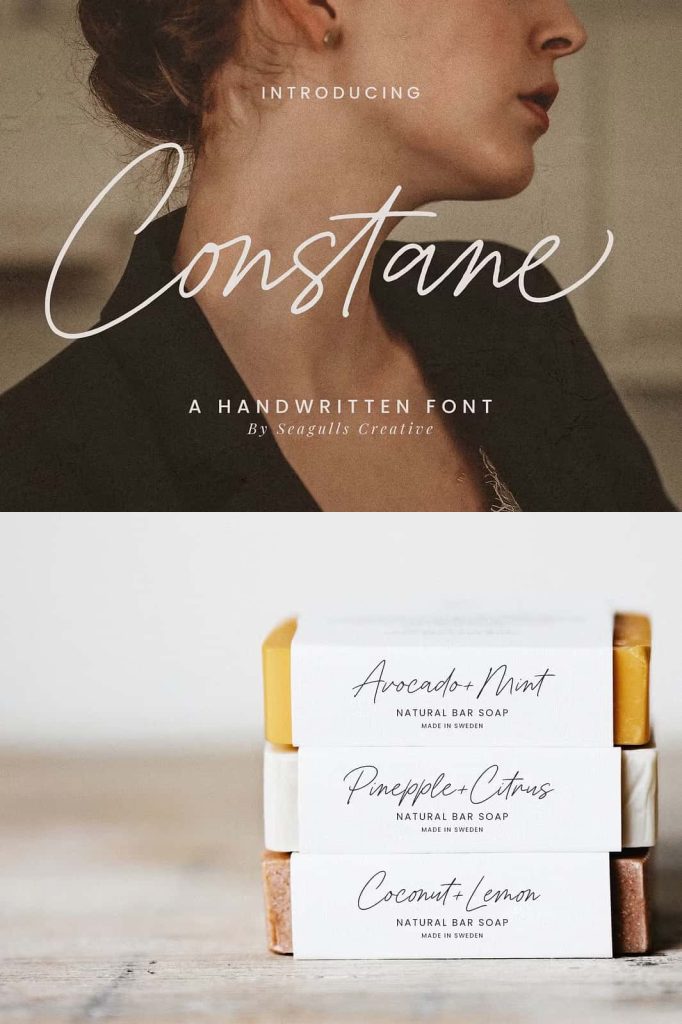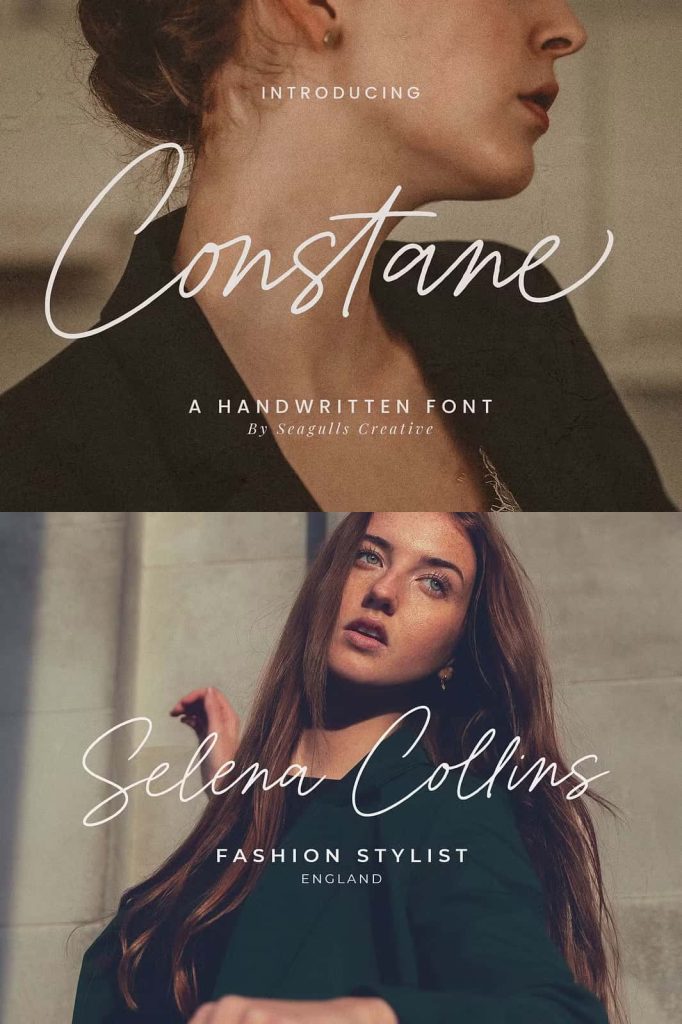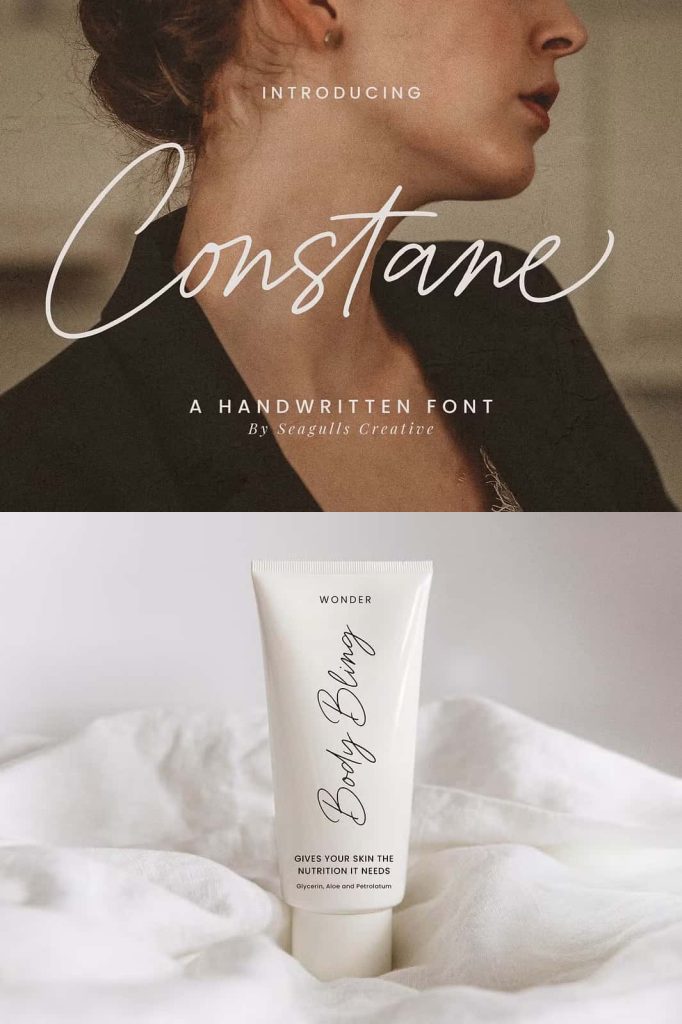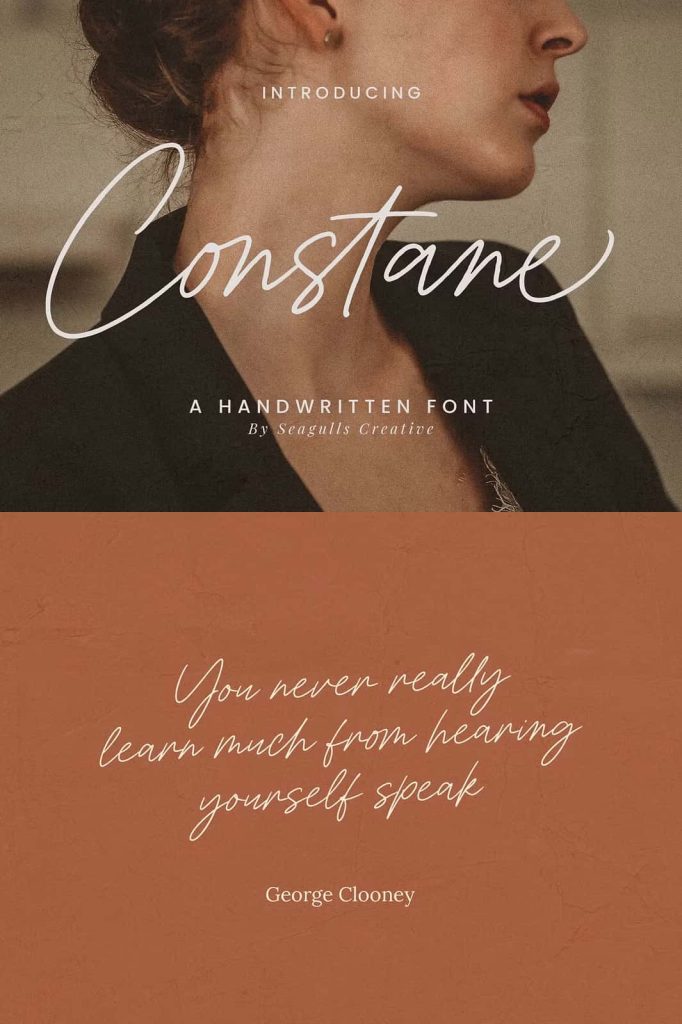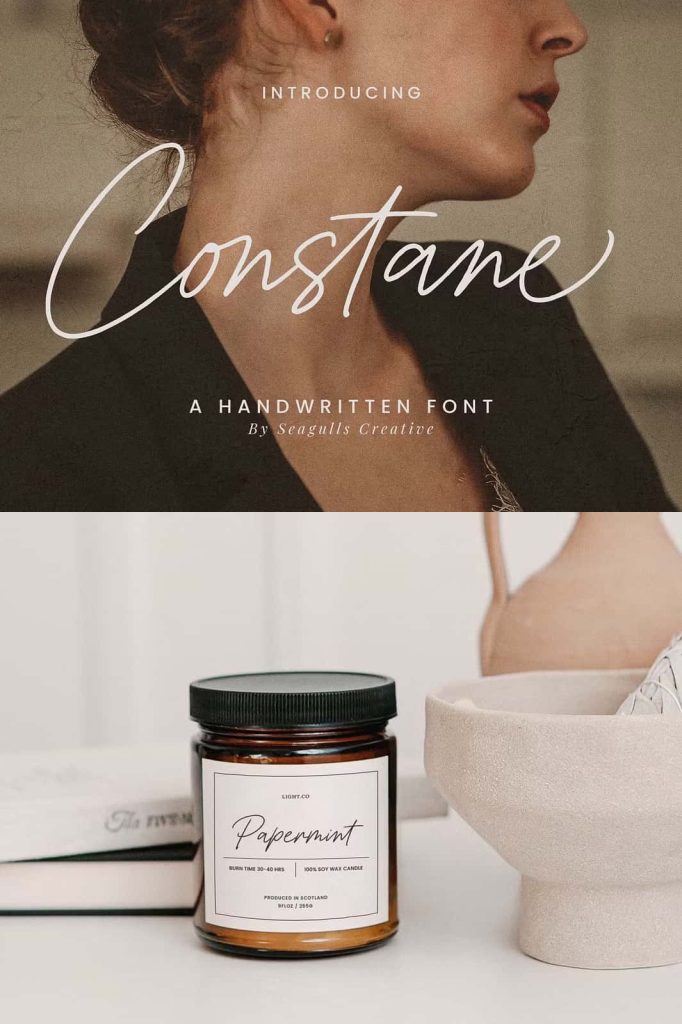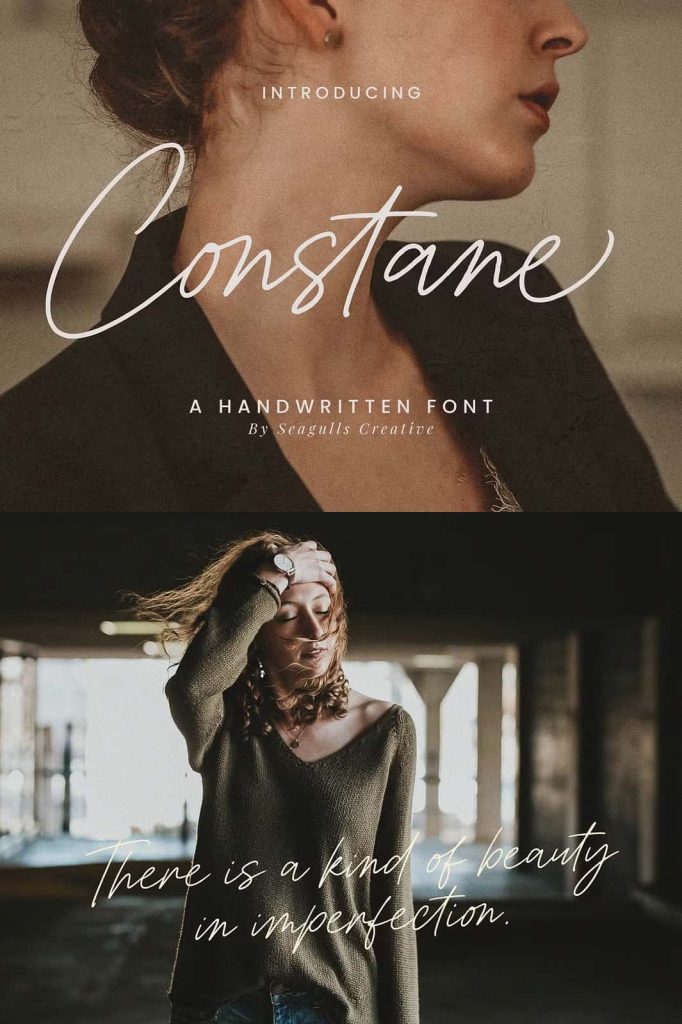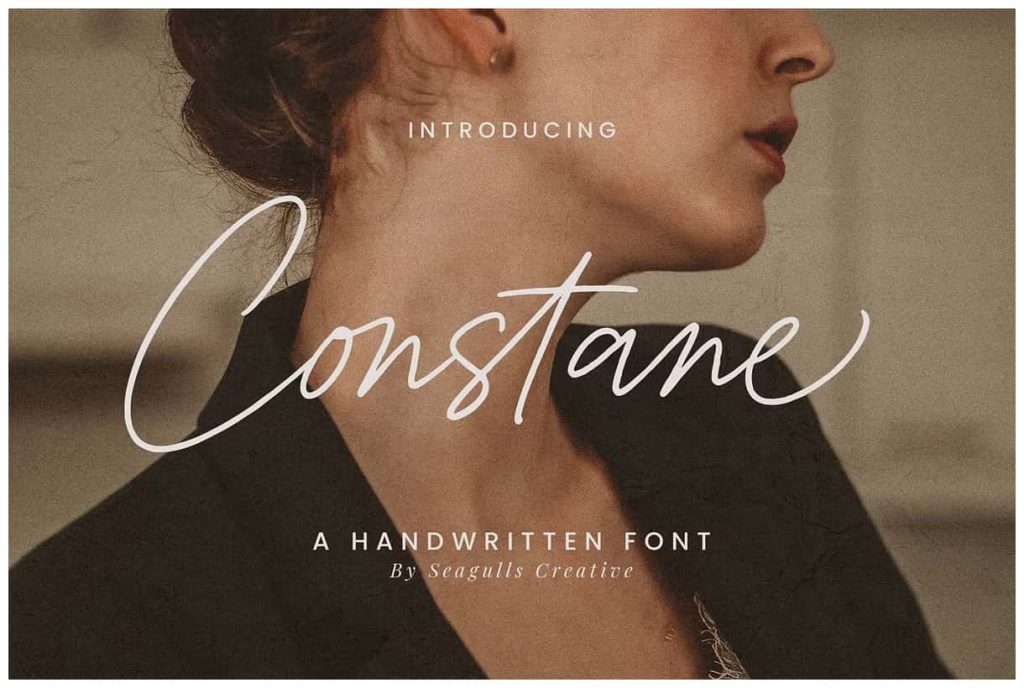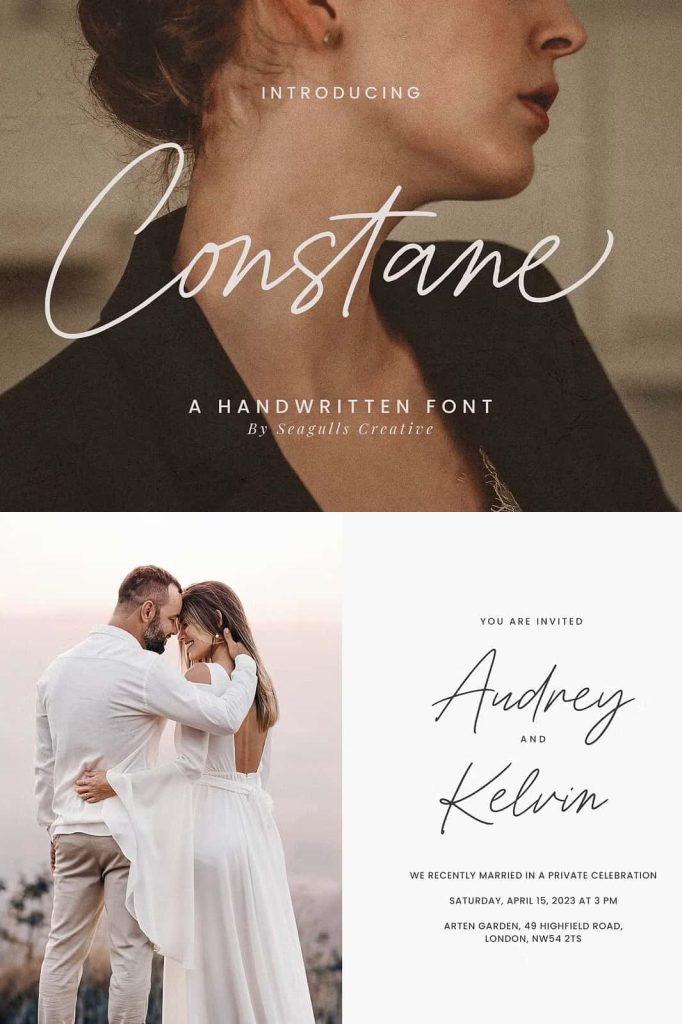
Constane Font: A Versatile Typeface for Stylish and Professional Designs
Constane is a highly versatile and stylish font crafted to enhance a wide range of creative projects with elegance and clarity. Its refined structure and balanced design allow you to create polished and impactful visuals across multiple mediums. Designers rely on Constane for branding, invitations, product packaging, photography overlays, social media graphics, and many other professional applications. With its adaptable nature and strong visual presence, Constane offers the flexibility needed to support diverse creative goals while maintaining a cohesive and sophisticated look.
Enhance Your Professional Projects with Constane
Constane excels in branding projects that demand a distinct and memorable visual identity. Its clean and graceful letterforms help shape a brand’s personality by communicating confidence, creativity, and professionalism. Use it for logos, taglines, business cards, and full identity systems to establish a polished appearance that resonates with audiences. The font adapts effortlessly to both modern and classic branding concepts, making it suitable for companies of all sizes and industries.
For labels and product designs, Constane adds a touch of sophistication that elevates product presentation. Whether you are designing handcrafted goods, luxury items, beauty products, or packaged foods, Constane ensures that your typography remains both readable and visually appealing. Its structure supports clear hierarchy, allowing designers to highlight product details while maintaining a consistent and elegant style.
Perfect for Invitations, Stationery, and Event Designs
Constane’s refined character makes it an excellent choice for wedding invitations, formal event stationery, and celebration cards. The font’s balanced proportions and graceful design help create a harmonious and inviting appearance. When used in event materials, Constane guides the viewer’s eye naturally, ensuring each message feels meaningful and polished.
Apply Constane to wedding menus, announcement cards, seating charts, envelope designs, and thank-you notes to create a unified and stylish theme. Its elegant presence strengthens emotional connection and helps capture the atmosphere of the event. The font also pairs well with decorative elements, minimalist layouts, and nature-inspired themes, allowing you to craft timeless and beautiful wedding designs.
Ideal for Social Media, Photography, and Advertising
Constane offers powerful results in digital contexts, especially for social media and photography. Its clarity and strong composition ensure that text overlays remain readable across different screen sizes. Whether you create promotional posts, inspirational quotes, campaign graphics, or digital banners, Constane delivers striking visual impact that captures attention instantly.
Photographers can use Constane to add elegant signatures, watermarks, or stylish captions to their images. Its balanced lines blend naturally with different photography styles, from minimalist portraits to vibrant outdoor scenes. The font enhances the visual atmosphere without overpowering the photograph itself.
Constane also performs exceptionally well in advertising materials. Use it to design posters, flyers, brochures, and promotional campaigns that need clear communication and aesthetic appeal. Its flexible structure allows it to support different moods—professional, artistic, modern, or classic—depending on how you style your layout.
Strengthen Product Packaging and Visual Identity
Product packaging requires typography that stands out while remaining readable and cohesive. Constane provides a strong visual foundation that supports brand recognition and enhances customer engagement. Its lettering draws attention without overwhelming the design, making it suitable for packaging across various industries. From luxury goods to artisanal products, Constane consistently delivers clean and professional typography.
Designers can also integrate the font into product design elements such as logos, labels, instructions, and promotional inserts. Its refined structure ensures that every detail contributes to a harmonious and high-quality presentation.
Constane is a versatile and elegant font designed to elevate branding, invitations, photography, product packaging, advertising, social media graphics, and many other creative projects. Its refined letterforms and adaptable style make it an essential tool for designers seeking a polished and professional typographic solution. With Constane, you can build cohesive visual identities and compelling designs that stand out in both digital and print media. Embrace the flexibility and timeless appeal of Constane to enhance every aspect of your creative work.